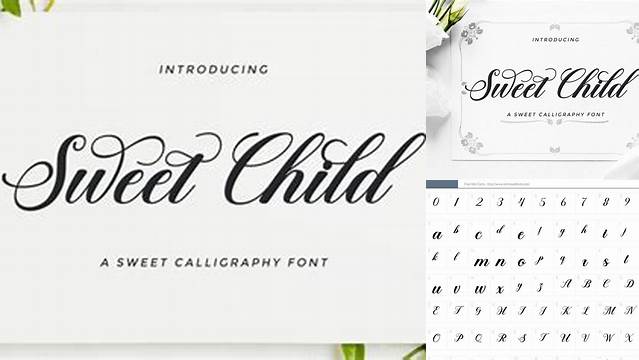
Hey everyone! If you're looking for a font that's got that perfect blend of charm, elegance, and a touch of whimsy, then you've probably stumbled upon the Sweet Child Script Font. And guess what? You're in the right place! We're going to dive deep into everything you need to know about the Sweet Child Script Font, including where to snag a sweet free download. So, buckle up, grab a coffee (or your beverage of choice), and let's get started!
1. Unveiling the Sweet Child Script Font
First things first, let's get acquainted with the star of the show: the Sweet Child Script Font. This font is a beautiful, hand-lettered script style that's perfect for a whole range of design projects. It's got a flowing, natural feel that makes it ideal for anything from wedding invitations to branding materials. The font's design is characterized by its graceful curves, slightly varying stroke widths, and the overall feeling of handwritten artistry. Think of it as the digital equivalent of a beautifully penned letter – it adds a personal touch that's hard to replicate.
The Sweet Child Script Font is often praised for its versatility. It works wonderfully for both headlines and body text, though its strengths really shine in display settings. Its readability is generally good, particularly when used at larger sizes. This makes it a favorite among graphic designers, web designers, and anyone looking to add a touch of sophistication and personality to their work. The font's popularity isn't just about aesthetics; it’s also about the feeling it evokes. It conveys a sense of warmth, friendliness, and approachability. This is why it's such a great choice for projects aimed at creating a positive emotional response, such as children's books, greeting cards, or anything aiming for a classic, elegant look. The details of the font, like its carefully crafted letterforms and ligatures (where letters connect), give it a professional and polished appearance. The font's design also often includes swashes and alternative glyphs, allowing designers to customize the look and feel to suit their individual needs. When used correctly, the Sweet Child Script Font can significantly enhance the visual appeal and impact of your designs. Its ability to capture attention and convey a specific mood makes it a valuable asset for any designer's toolkit. Plus, its availability as a free download makes it even more appealing!
3. Sweet Child Script Font: Uses and Applications
So, what can you actually do with the Sweet Child Script Font once you've got it? Well, the possibilities are pretty much endless, but here are some of the most popular and effective applications:
- Invitations and Stationery: This font is a perfect choice for wedding invitations, birthday cards, baby shower announcements, and any other kind of special event stationery. It lends a touch of elegance and personalization that's hard to beat. The flowing script adds a premium feel, making the recipient feel special. Consider using it for the names of the recipients, the date, and other key details to make your invitation stand out.
- Logos and Branding: If you're working on a brand that wants to convey a sense of friendliness, creativity, or sophistication, the Sweet Child Script Font can work wonders. It's particularly well-suited for brands targeting women, children, or those in the creative arts. However, it's crucial to use it strategically. For logos, you often want a balance of elegance and readability, especially at smaller sizes. Make sure to test how the logo appears on different surfaces, such as business cards, websites, and product packaging.
- Website Design: Integrate the font into headlines, subheadings, or short text snippets to add visual appeal to your website. However, be cautious when using it for large blocks of body text, as script fonts can be harder to read than simpler fonts. Consider using it for call-to-actions or in other areas to make your website more visually engaging. Always optimize the font's readability across different devices, including phones and tablets, by adjusting the font size, line spacing, and color.
- Social Media Graphics: Create eye-catching graphics for your social media profiles. Use the font for quotes, captions, or to highlight special promotions. It's a great way to capture attention and add personality to your posts. Make sure to use high-quality images and combine the font with complementary elements. The right use of color, layout, and images will significantly improve your social media performance.
- Print Design: From posters to flyers, the Sweet Child Script Font can be used to create compelling print materials. This font can really elevate your design to grab attention and transmit your message. For example, a restaurant may use the font to create a menu that feels warm and inviting. Remember to consider the printing process and make sure the font remains legible on different paper types. These use cases demonstrate the flexibility and appeal of the Sweet Child Script Font. Each application benefits from the unique qualities of the font, turning ordinary designs into engaging and personalized projects. This is especially true when downloaded for free!